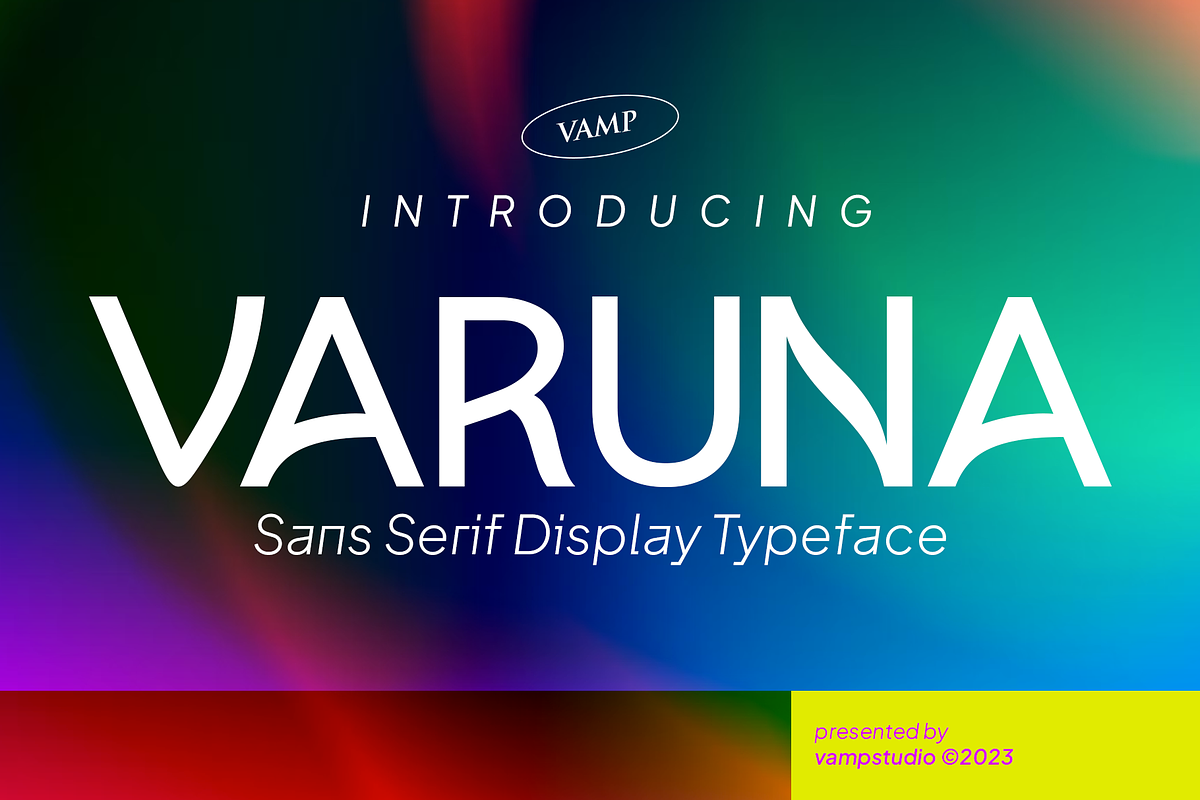
Varuna Sans Serif Premium Font Free Download is a sleek and modern typeface designed for clarity and elegance. With its clean lines and balanced proportions, Varuna is perfect for a wide range of design projects, including websites, corporate branding, editorial layouts, and minimalist packaging. It brings a professional touch to any creative work without sacrificing visual appeal.
Crafted for versatility, this sans serif font performs beautifully in both headlines and body text. Whether you’re designing presentations, logos, or mobile apps, Varuna adapts effortlessly to different screen sizes and formats.